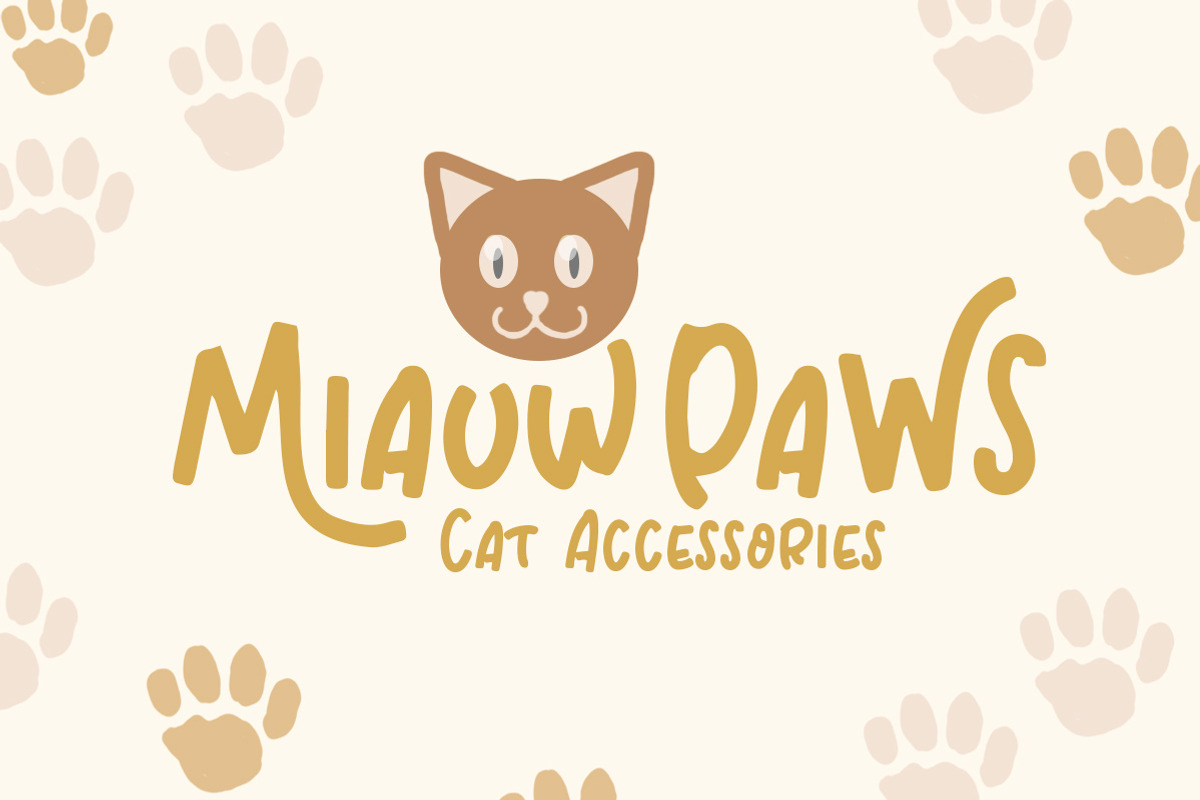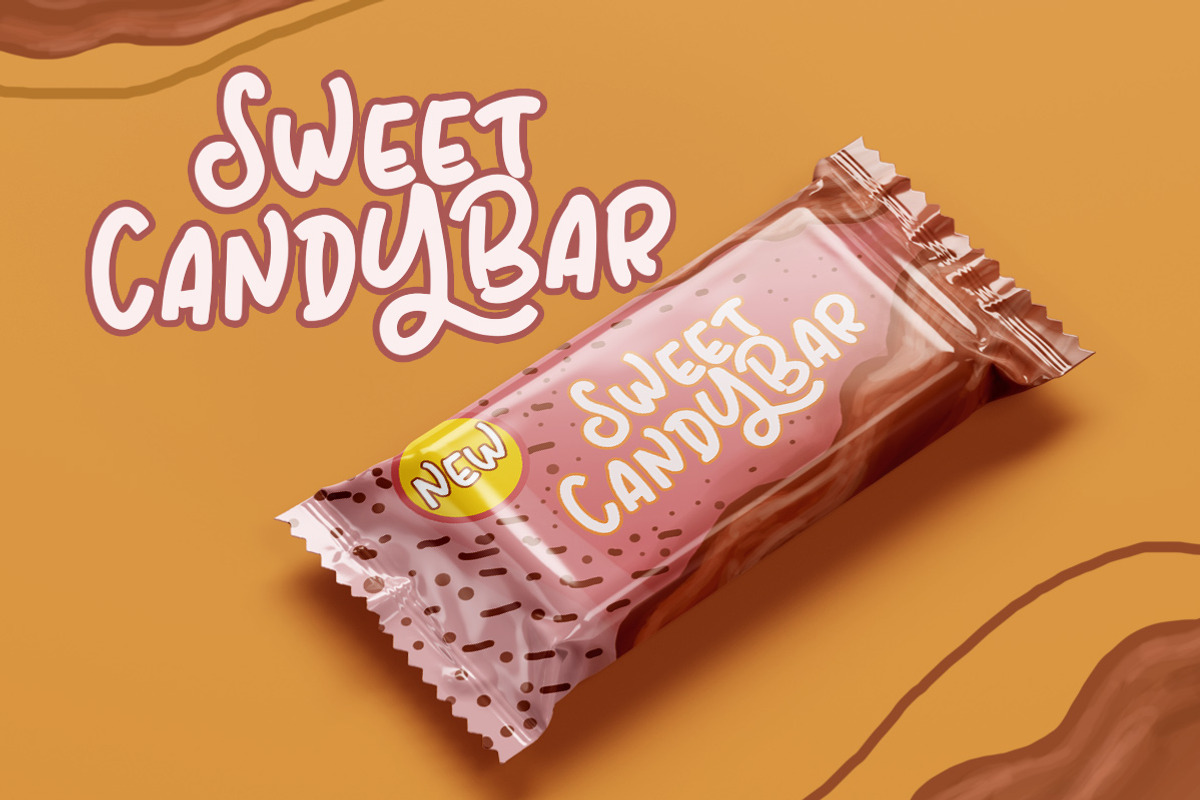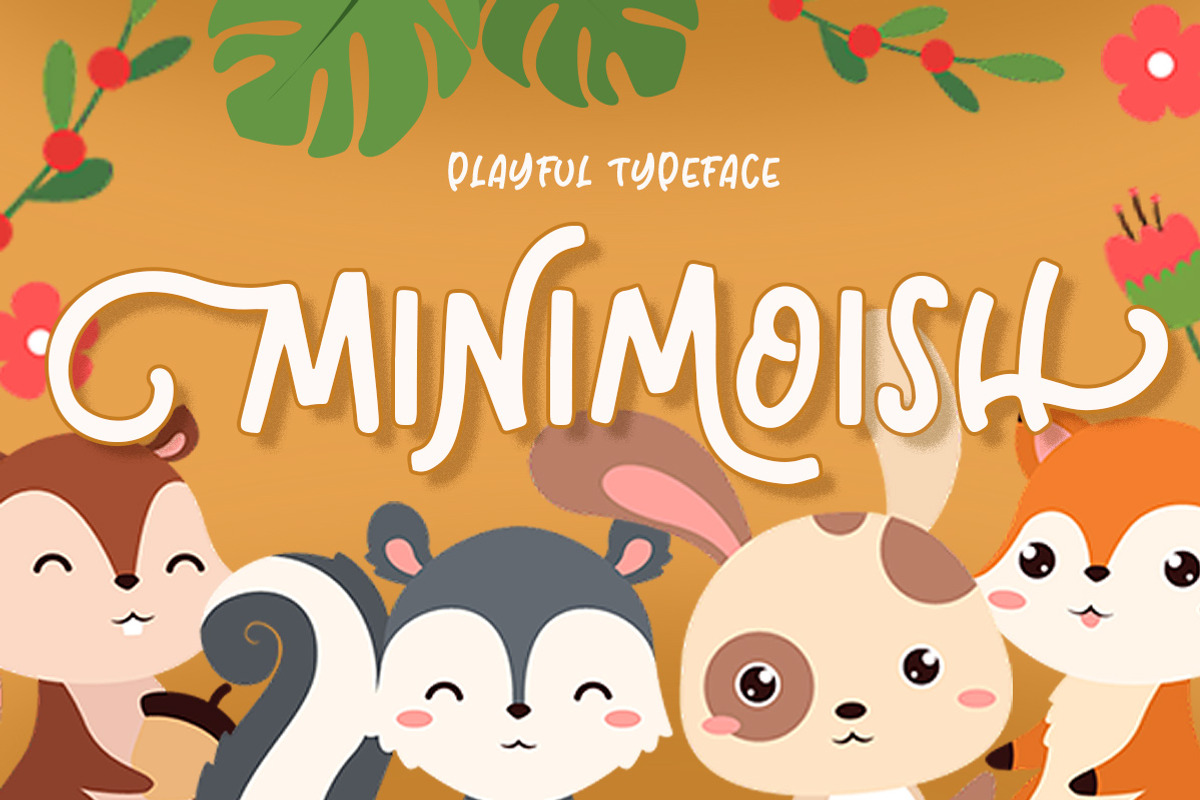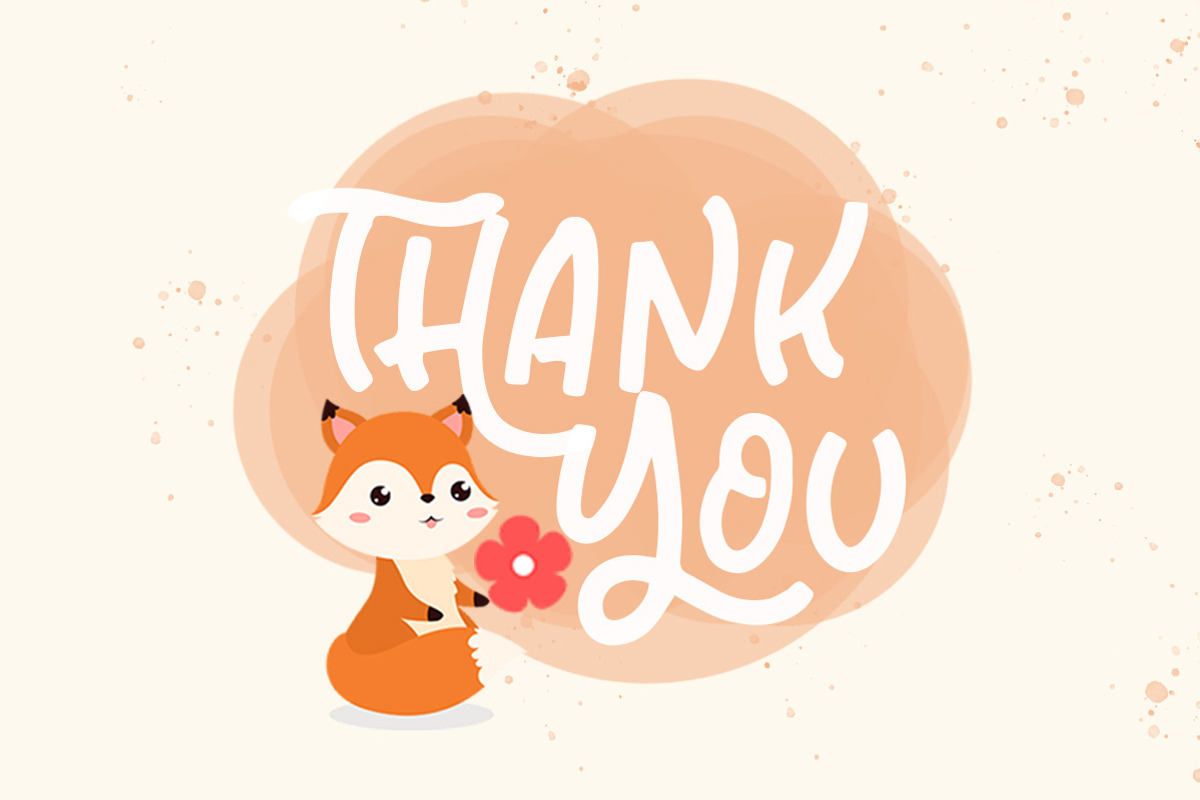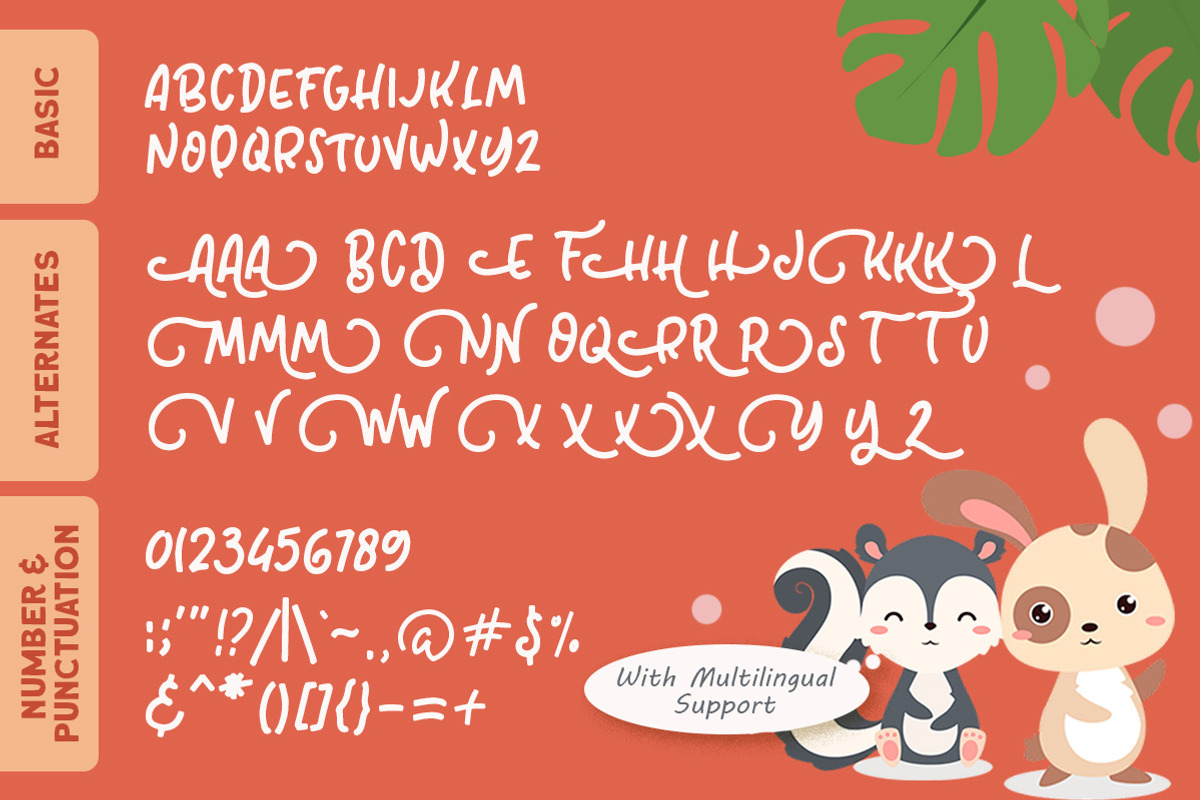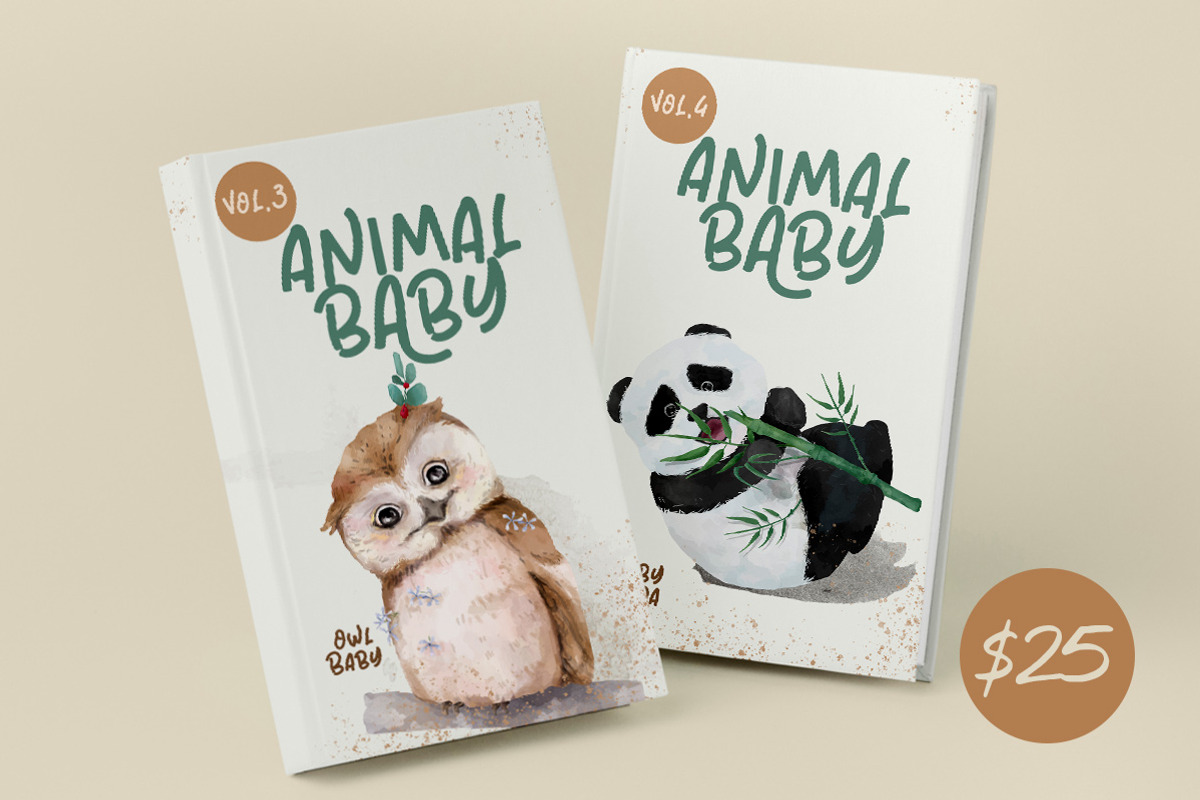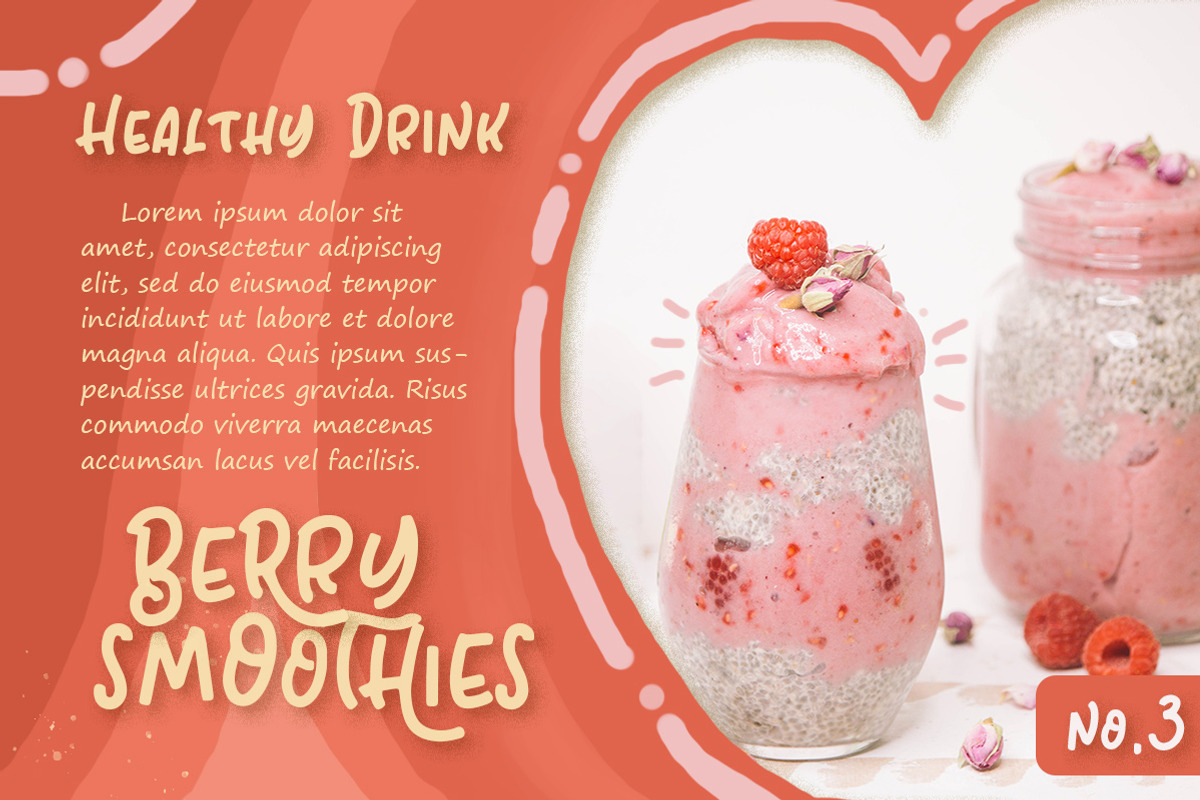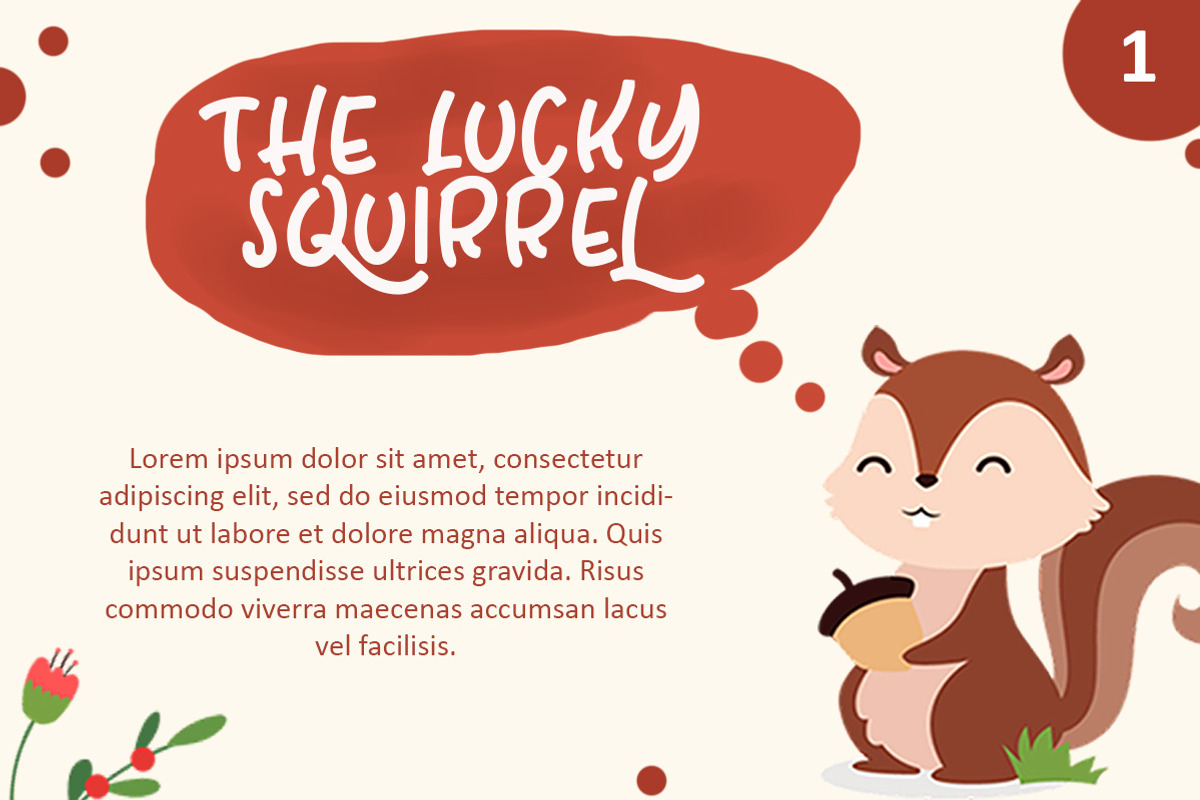
Minimoish - Playful Typeface
Introducing our latest font, Minimoish! Minimoish is a playful fonts that contain uppercase, lowercase, symbol, alternate, and also support multi language. you can use this font to make a logo for branding, quote, and playful design.